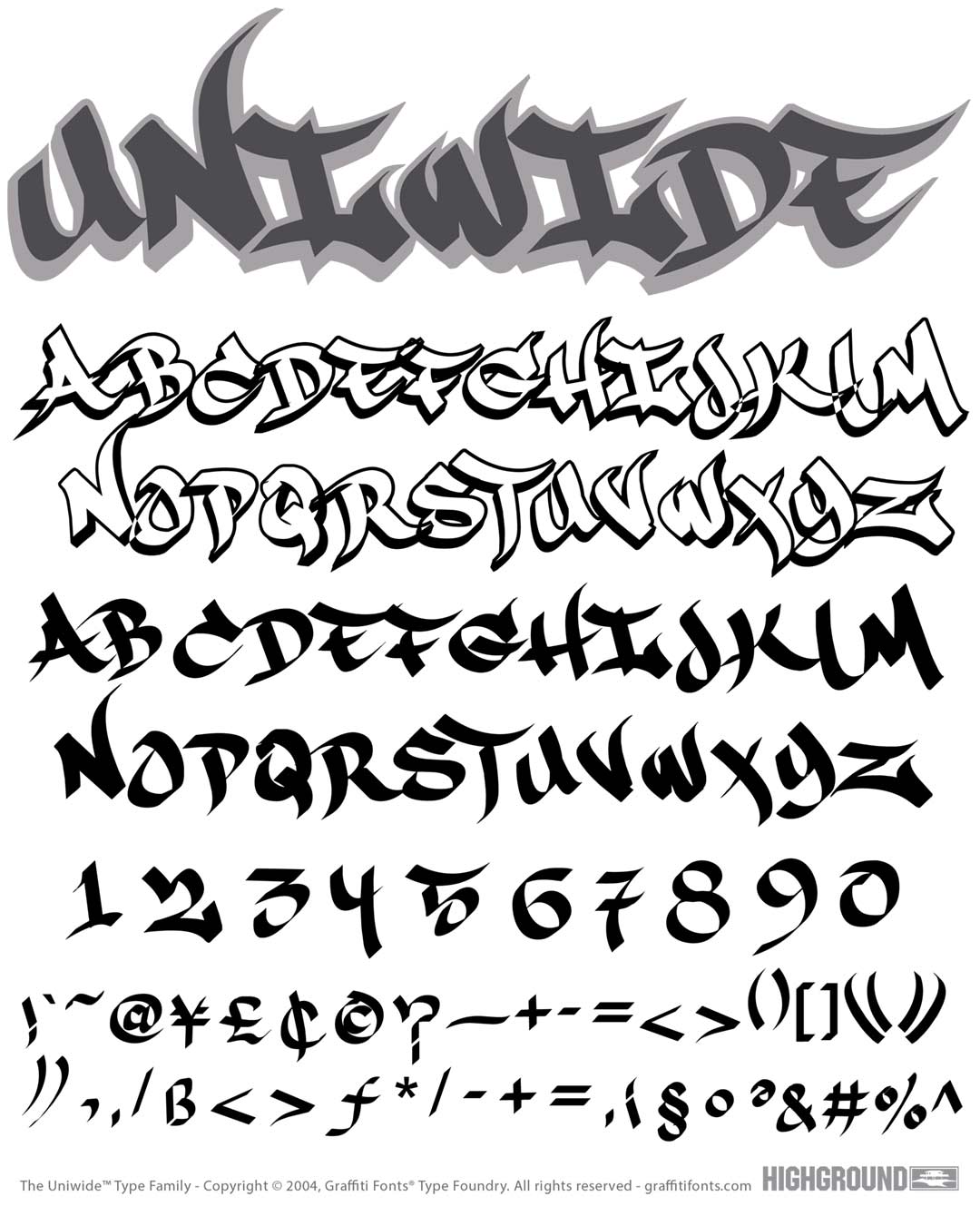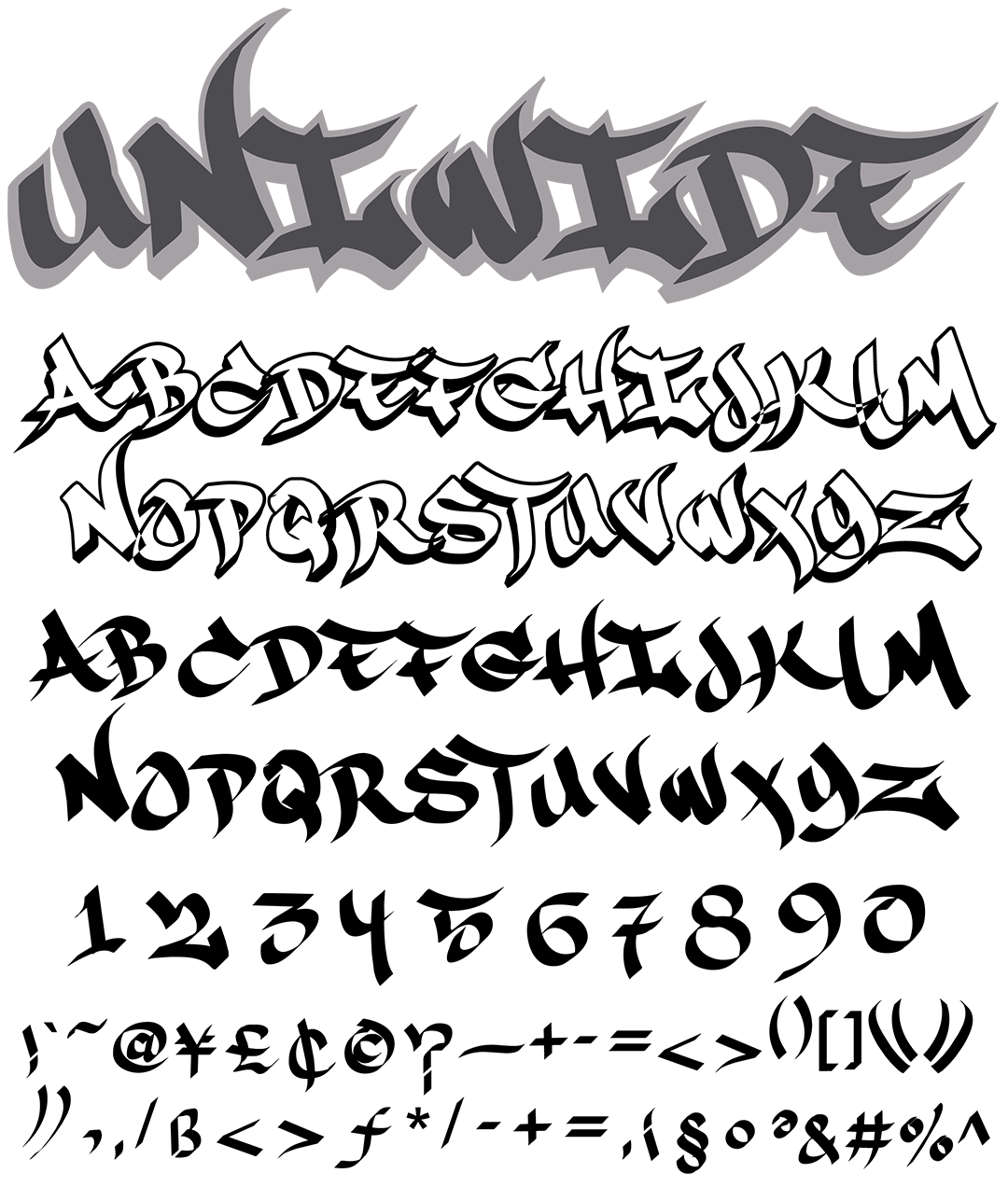
UniWide Font
UniWide Title Image
UniWide Graffiti Alphabet
UniWide Graffiti Font Family
105 Bold & legible tag style characters as written with a "uniwide" marker. This font was digitally recreated from artwork on paper & is derived from the same characters as our "Rapscript" font family. With smooth lines & sharp corners this handstyle was made to work well with thick outlines & includes a custom outline style that can be layered directly over the fill style.